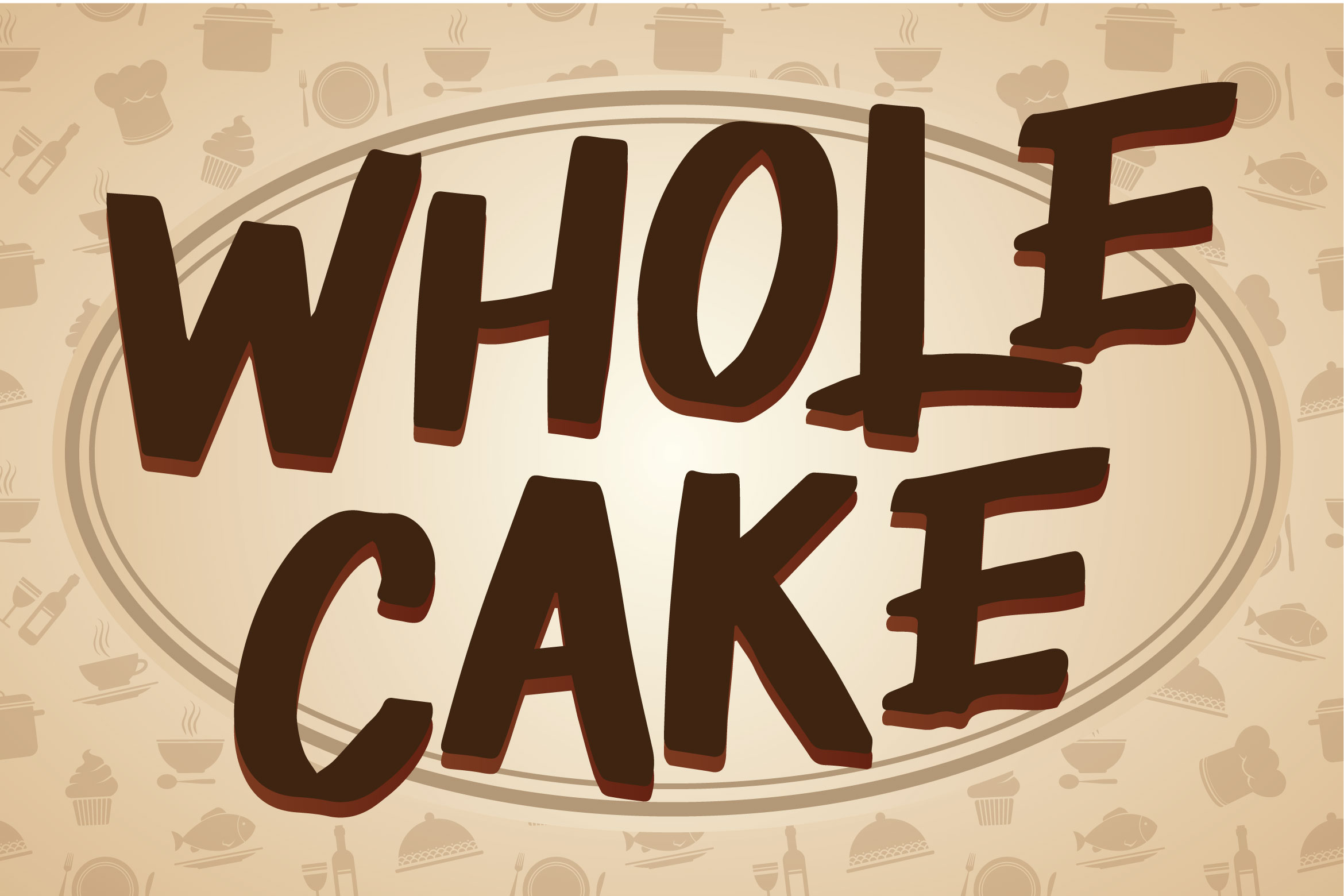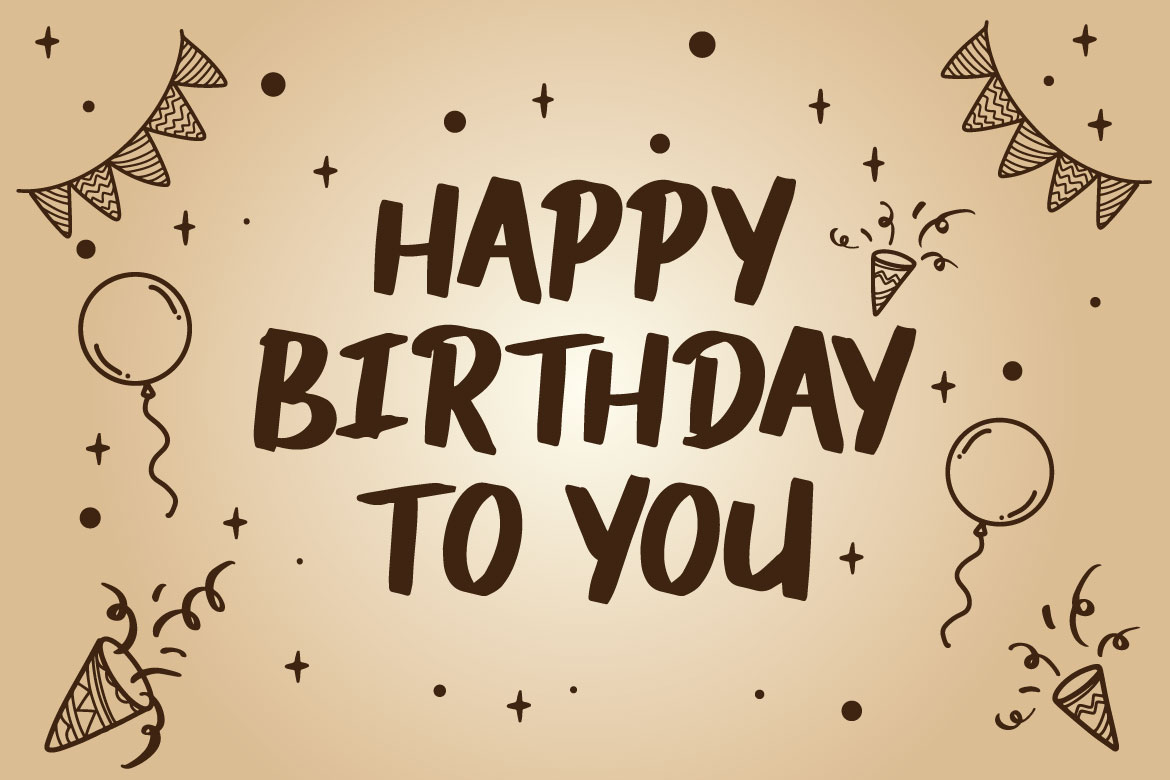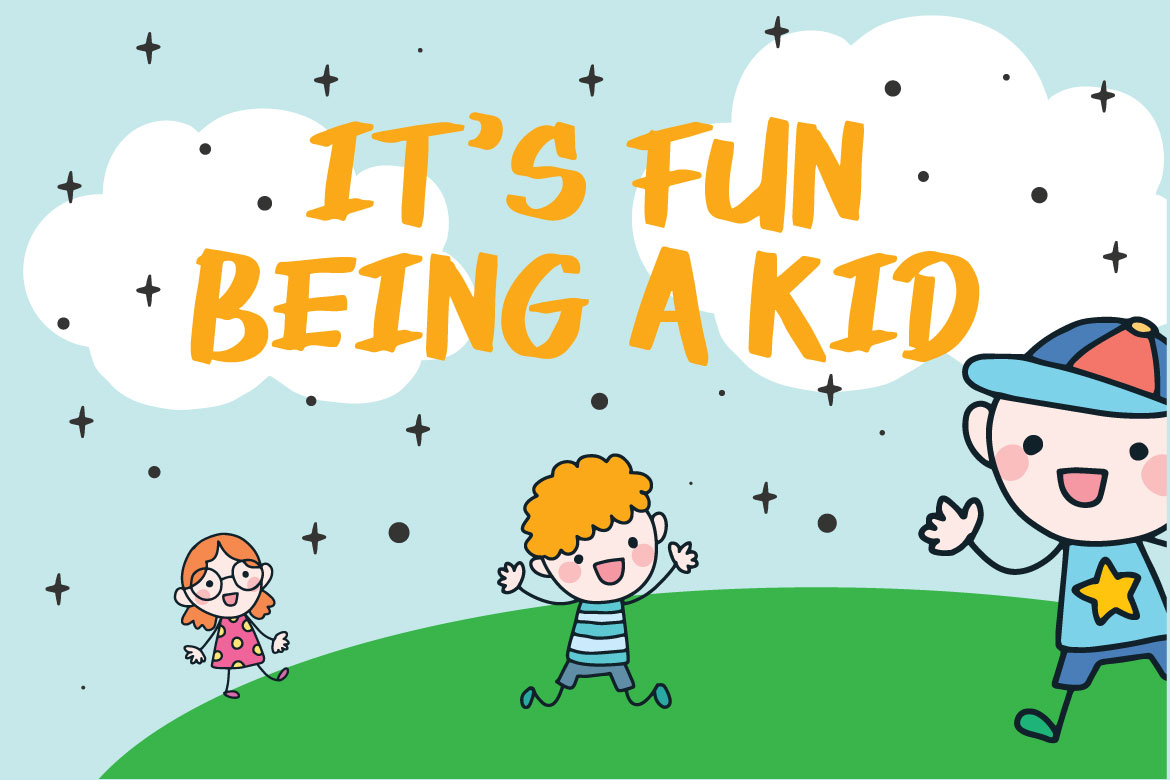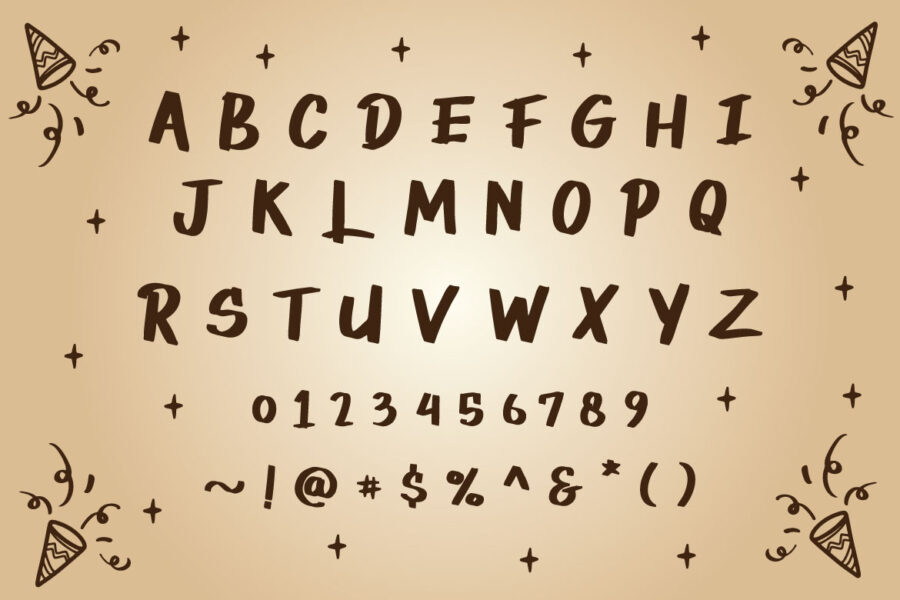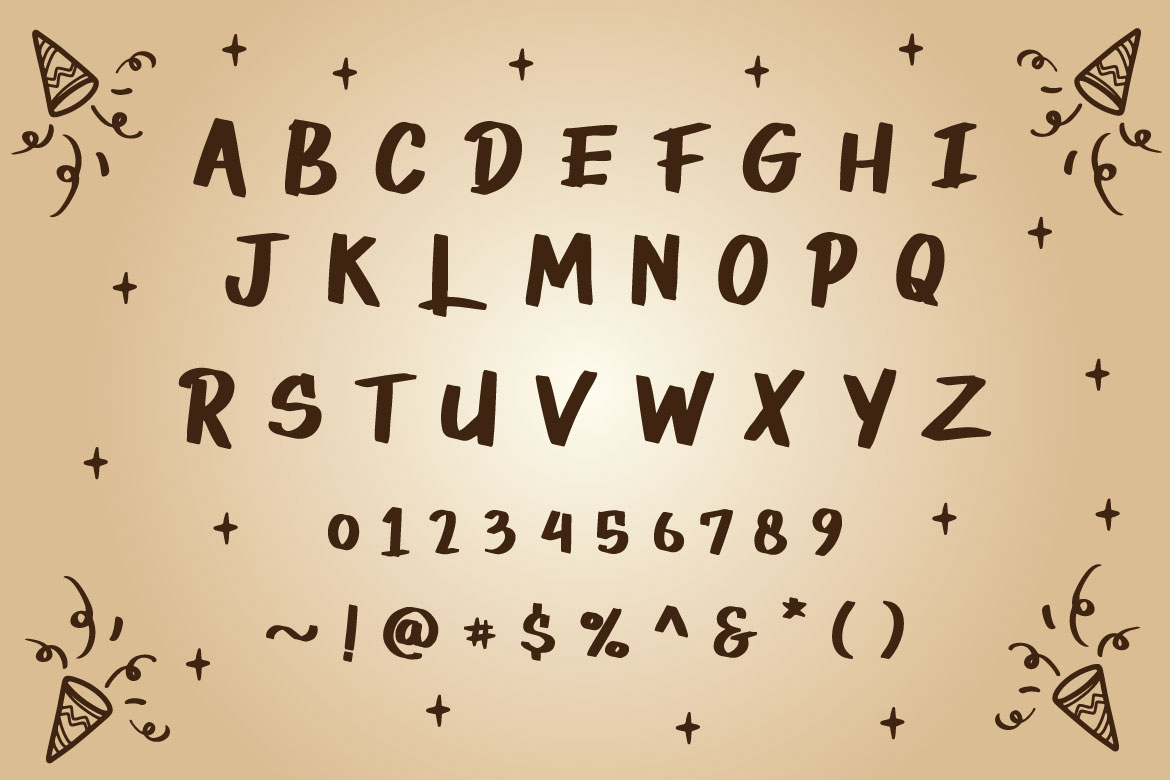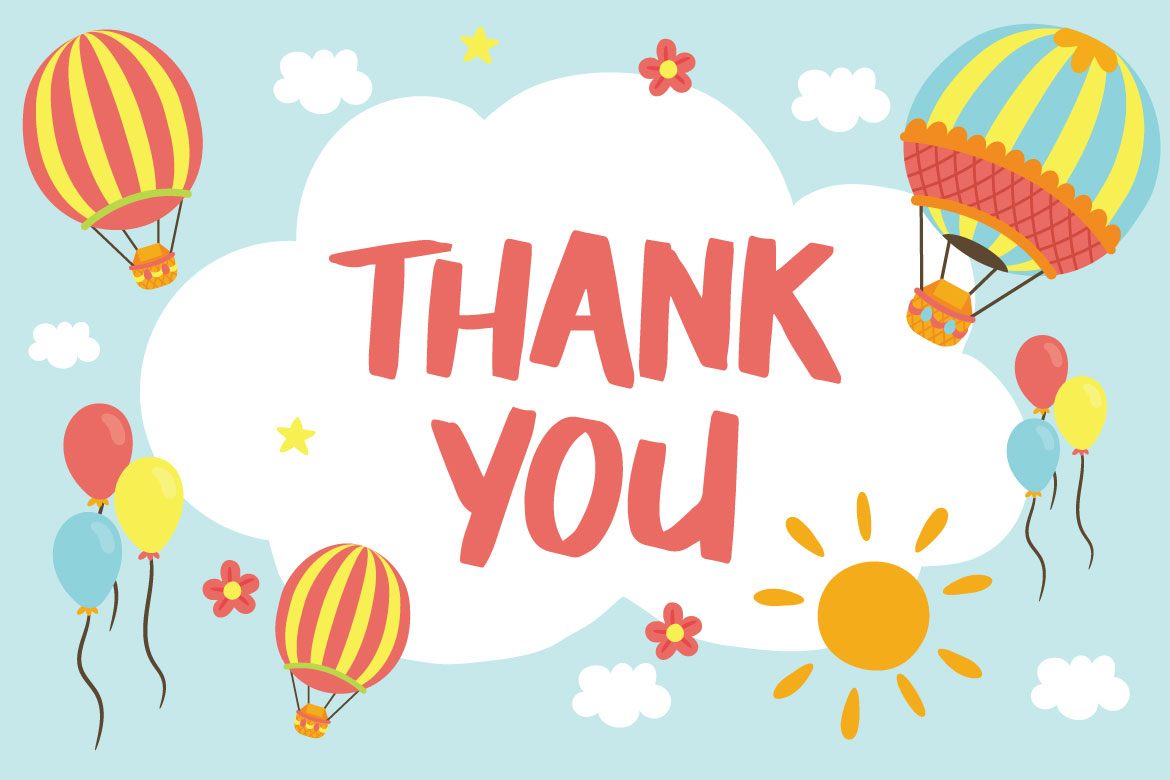
Whole Cake is a bold and playful display font that brings sweet, hand-lettered energy to your designs. With its chunky strokes and organic, slightly irregular shapes, this typeface is perfect for projects that need to radiate joy, warmth, and a homemade feel. Whether you’re creating birthday cards, bakery logos, kids’ posters, or celebration banners, Whole Cake delivers a delightful dose of personality with every letter.
This font includes uppercase characters, numerals, and essential punctuation, making it highly versatile and easy to use for both digital and print projects. Its cartoon-like style, bouncy rhythm, and expressive vibe make it ideal for children’s content, party invitations, fun packaging, or any creative work that needs a charming and cheerful visual punch.